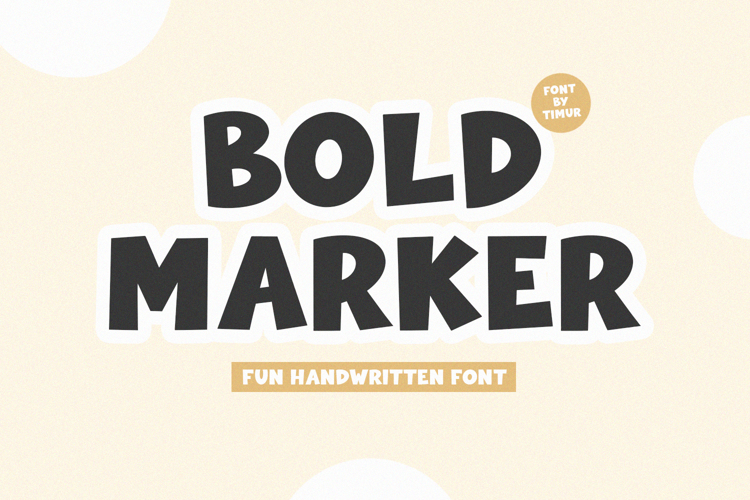
Bold Marker Font
About Bold Marker Font
Bold Marker is a Handwritten font that is modern and fresh, and will bring a warm and inviting feel to your business. Take advantage of the fonts and experience the magic for yourself.
Bold Marker is perfect for product packaging, branding project, megeenazine, social media, wedding, or just used to express words above the background.